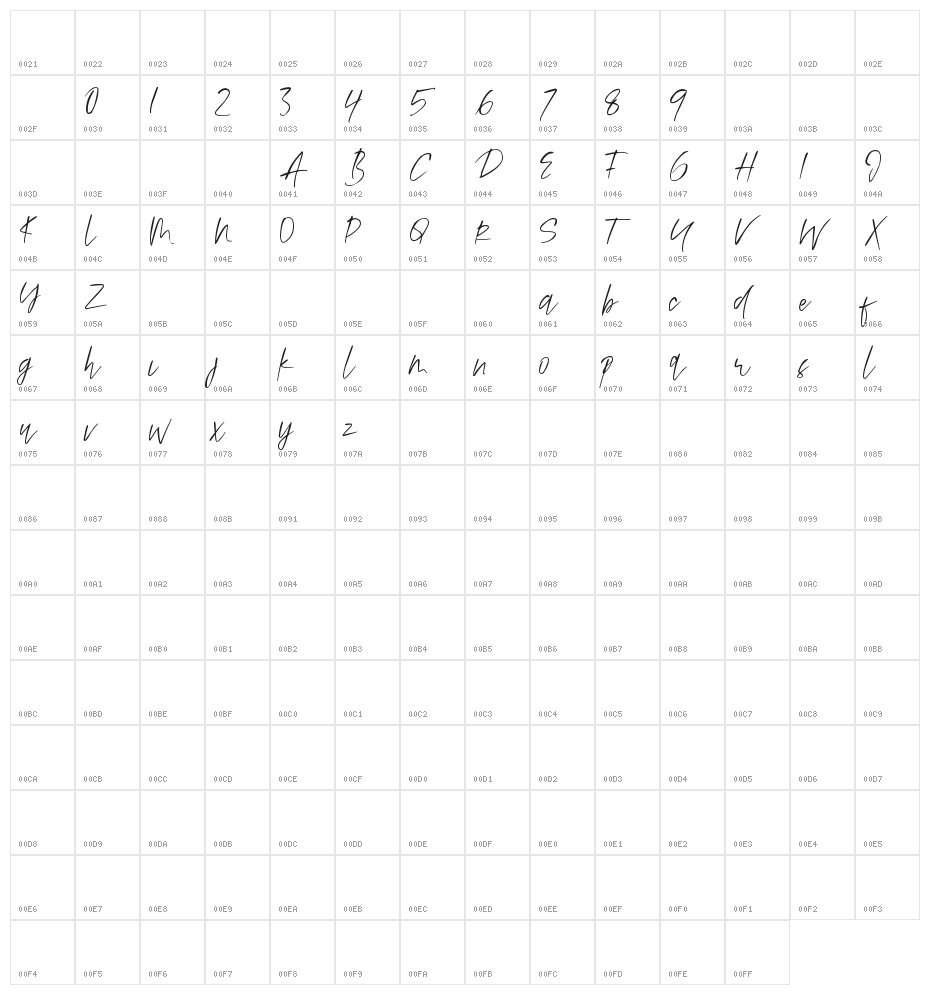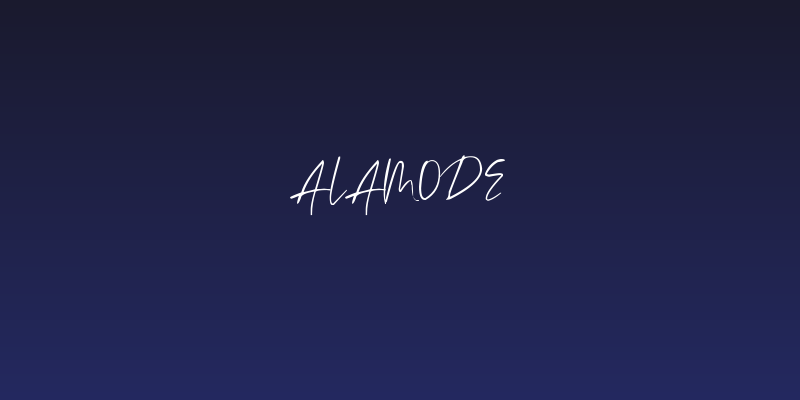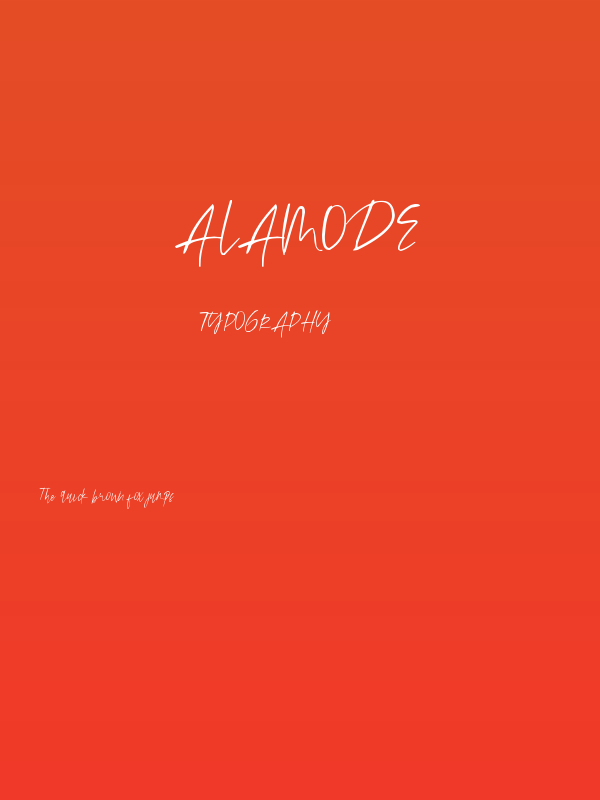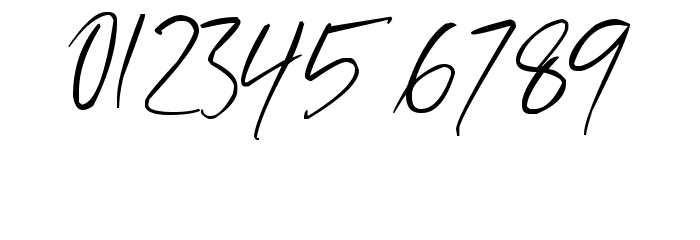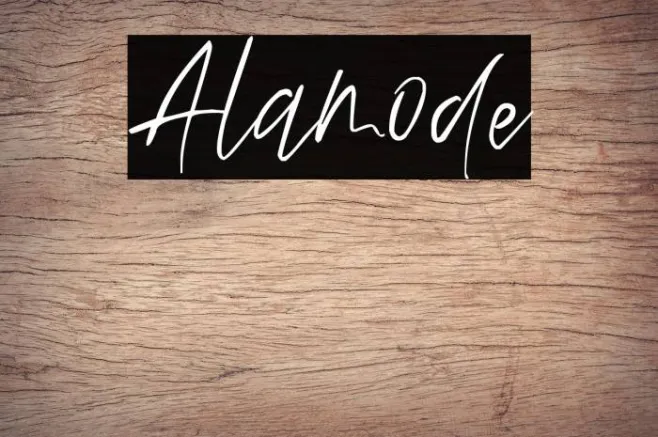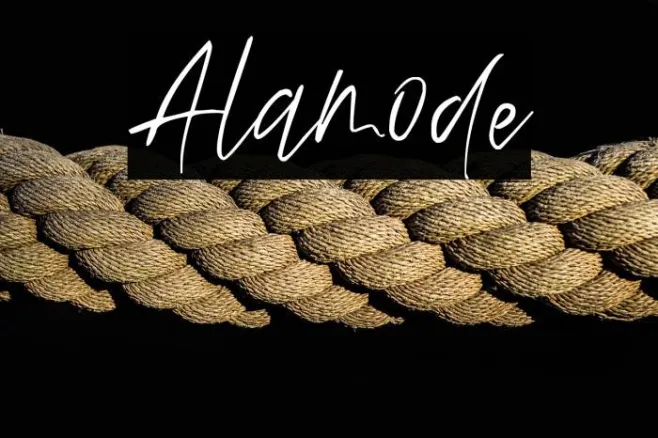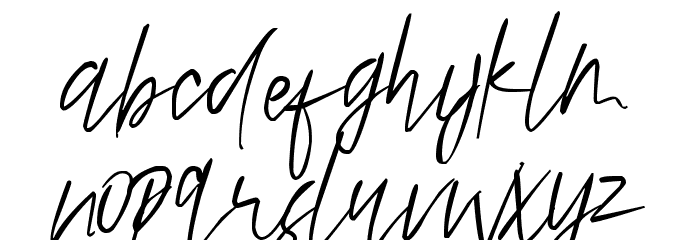
Alamode Font
Alamode Description
This font features a dynamic and expressive handwritten style, characterized by fluid strokes and a natural, flowing rhythm. The letters are slightly slanted, giving it a casual yet sophisticated appearance. The uppercase and lowercase letters maintain a consistent style, with some variations in stroke thickness that add to its organic feel. The numbers and special characters are designed to complement the alphabet, maintaining the same lively and spontaneous aesthetic. This font is perfect for projects that require a personal touch, such as invitations, greeting cards, or branding materials that aim to convey warmth and creativity.
| Use Case | Logos, Headlines, Personal projects |
| Proposed Projects | Ideal for invitations, greeting cards, personal branding, and creative projects. |